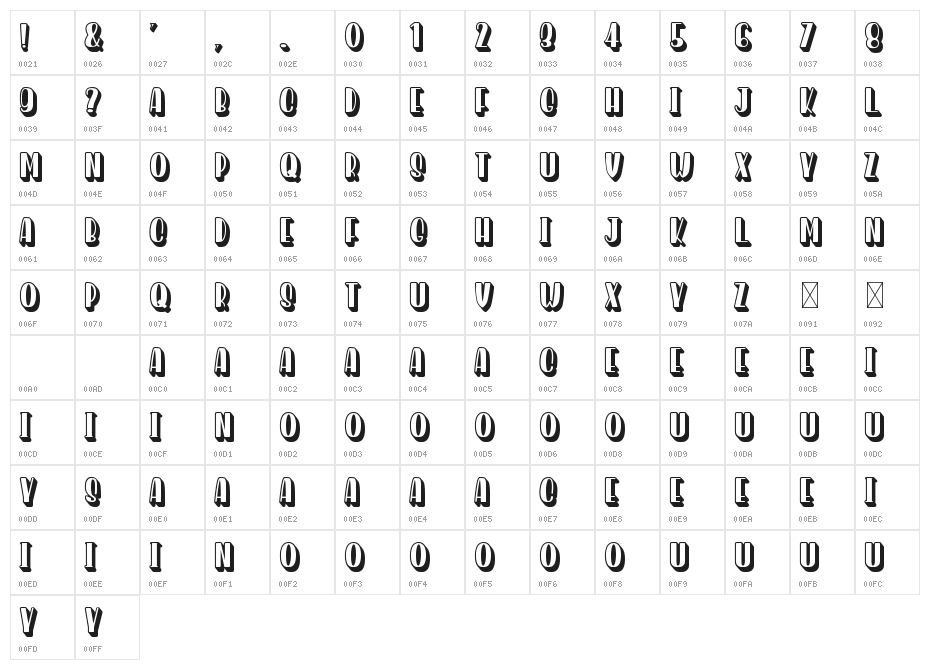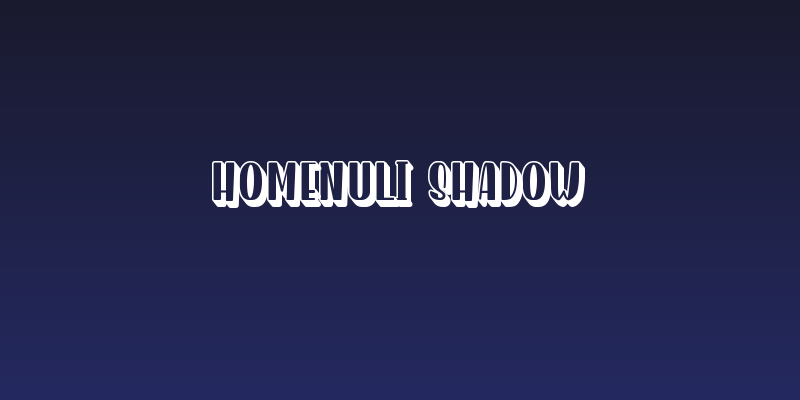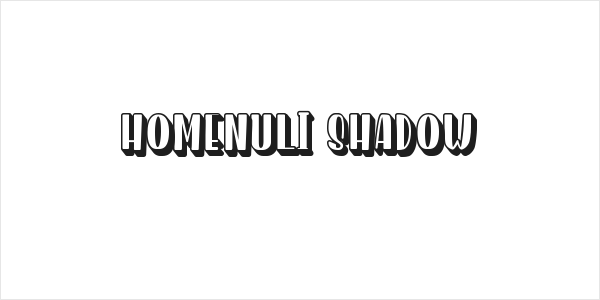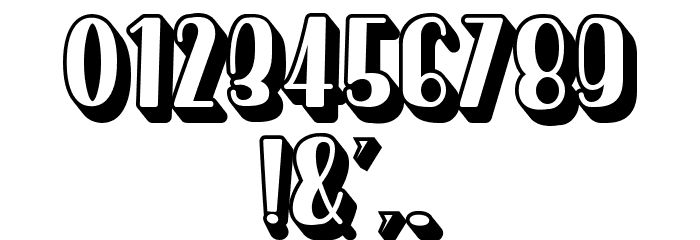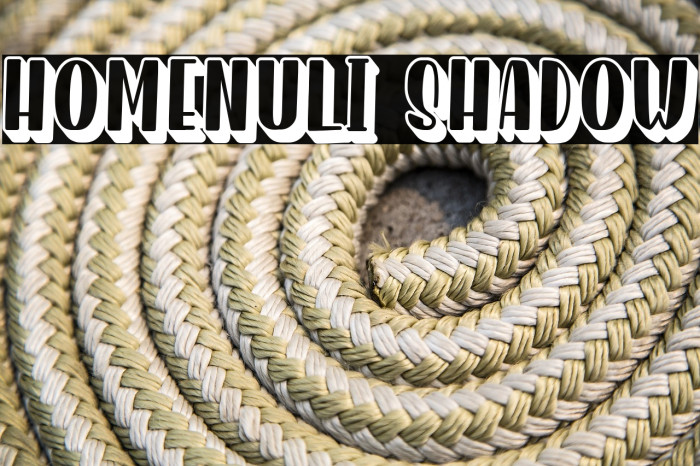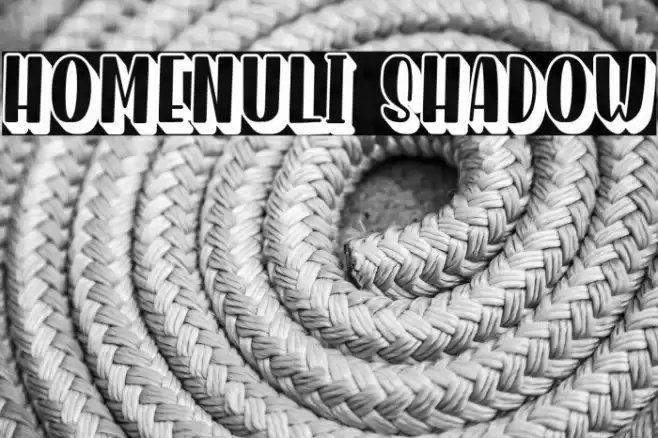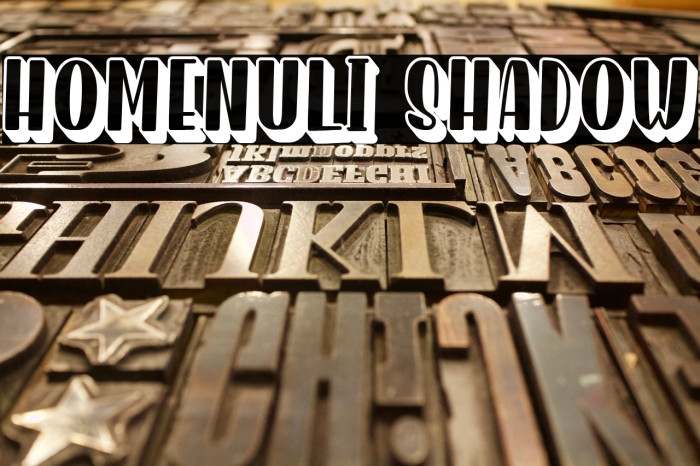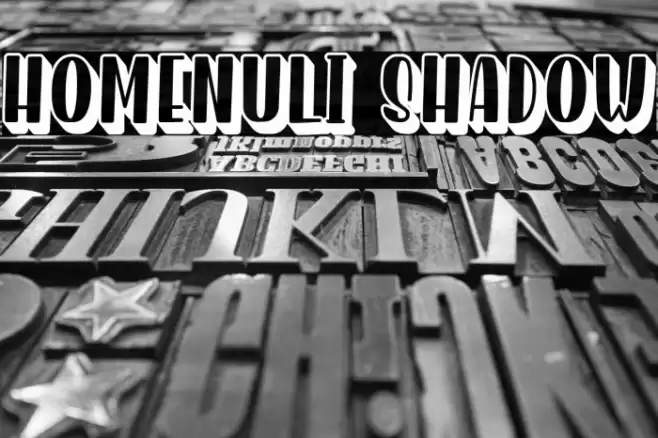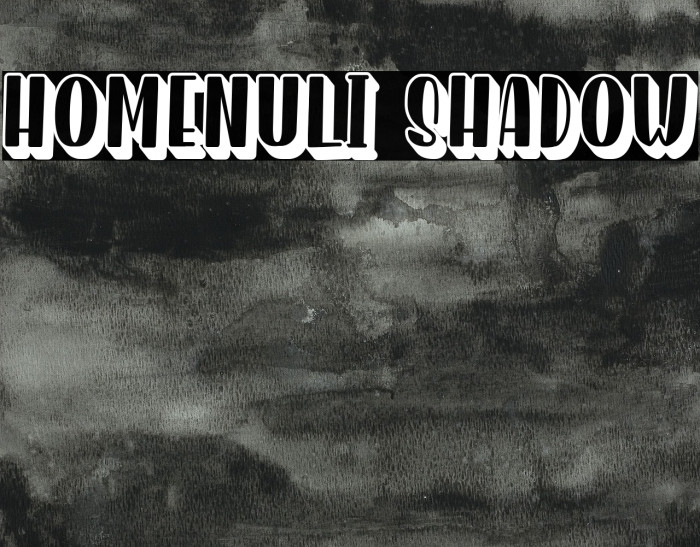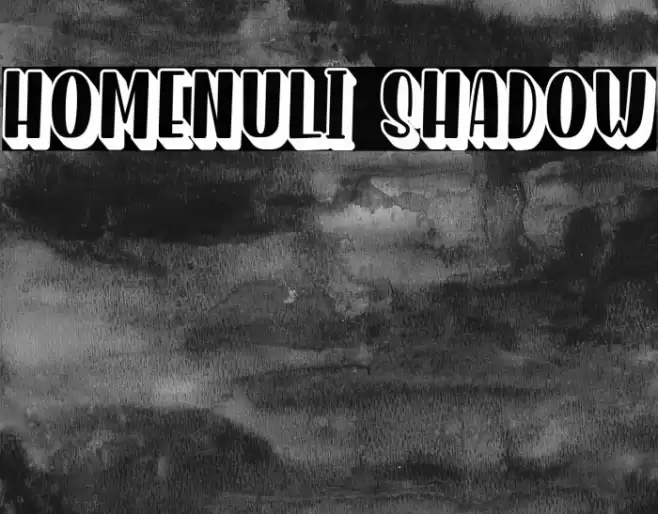
Homenuli Shadow Font
Homenuli Shadow Description
This font features a bold, playful style with a distinct shadow effect that gives it a three-dimensional appearance. The characters are uppercase and have a strong presence, making them ideal for attention-grabbing designs. The shadow is consistently applied to the right and slightly below each letter, enhancing the depth and visual interest. The font's thick strokes and rounded edges contribute to its friendly and approachable feel, while the shadow adds a touch of sophistication. This combination makes it suitable for a variety of creative projects.